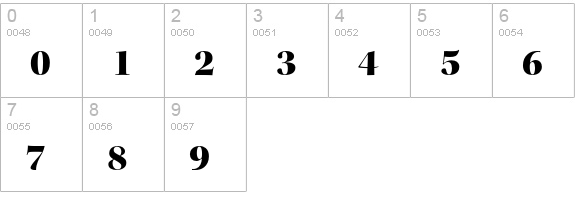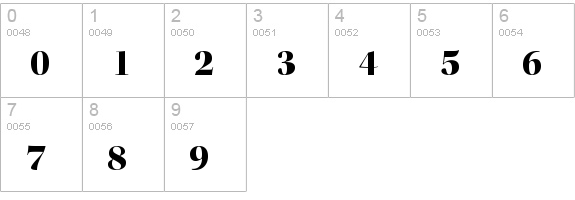
Kepler Std Black Display is a maximum-weight, dramatic variant in the Kepler typeface family \xE2\x80\x94 well suited to maximum-impact headlines, posters, and packaging.
Kepler Std Black Display font exudes elegance and sophistication with its bold and powerful appearance. This contemporary typeface is perfect for creating impactful headlines, logos, and signage that demand attention and make a lasting impression. The Kepler Std Black Display font features clean lines and a strong presence, making it ideal for both digital and print applications. Its sturdy and versatile design ensures readability, even at smaller sizes, while maintaining its visual impact when used in larger formats. This font's bold and commanding nature is enhanced by its distinctive letterforms, which are carefully crafted to captivate the viewer's eye. Each character carries a sense of authority and elegance, exuding a timeless appeal that is sure to elevate any design project. What sets Kepler Std Black Display font apart is its availability as a free download at FontsMarket.com. This means that designers, enthusiasts, and anyone looking to add a touch of sophistication to their work can access this remarkable font without any cost. With its exceptional quality and accessibility, Kepler Std Black Display font ensures that creativity knows no boundaries. Whether you're designing a striking poster, a captivating website, or an eye-catching advertisement, Kepler Std Black Display font is the perfect choice to make your message stand out. Its bold and powerful presence, combined with its availability as a free download, makes it an essential tool for any design project. Discover the endless possibilities of this remarkable font and bring your vision to life with Kepler Std Black Display.